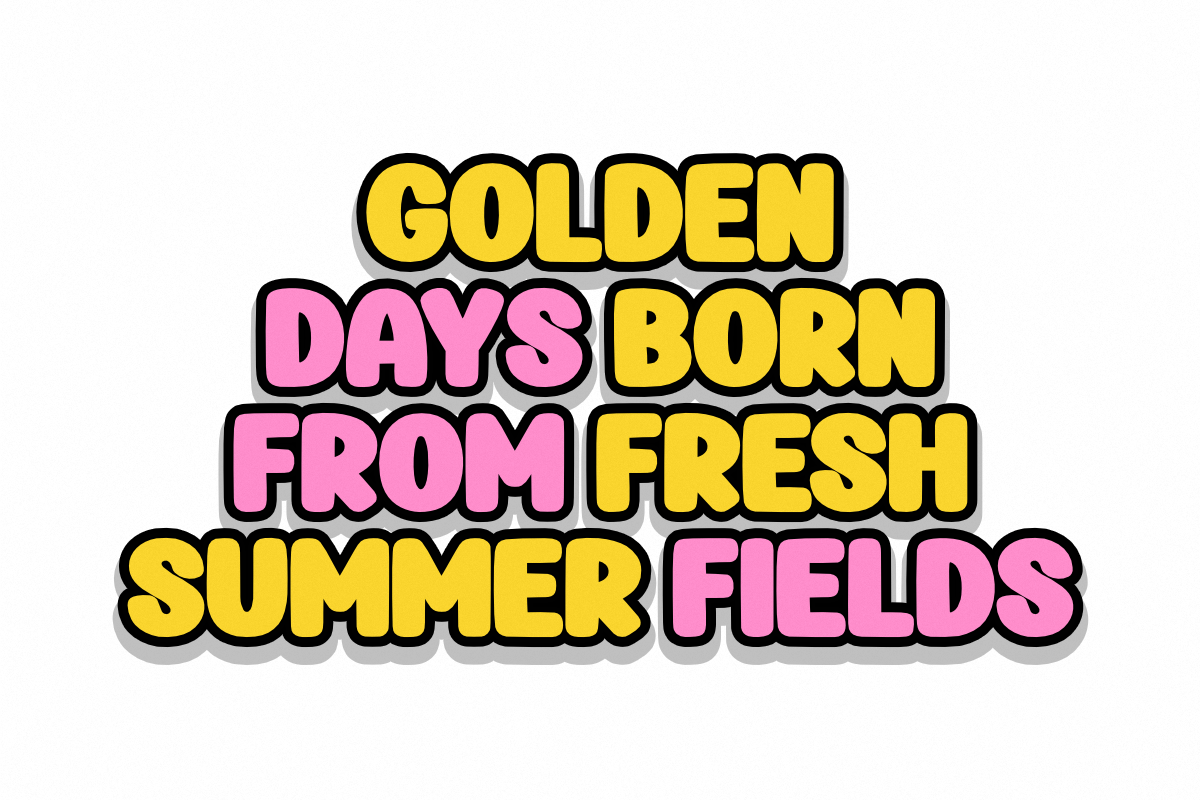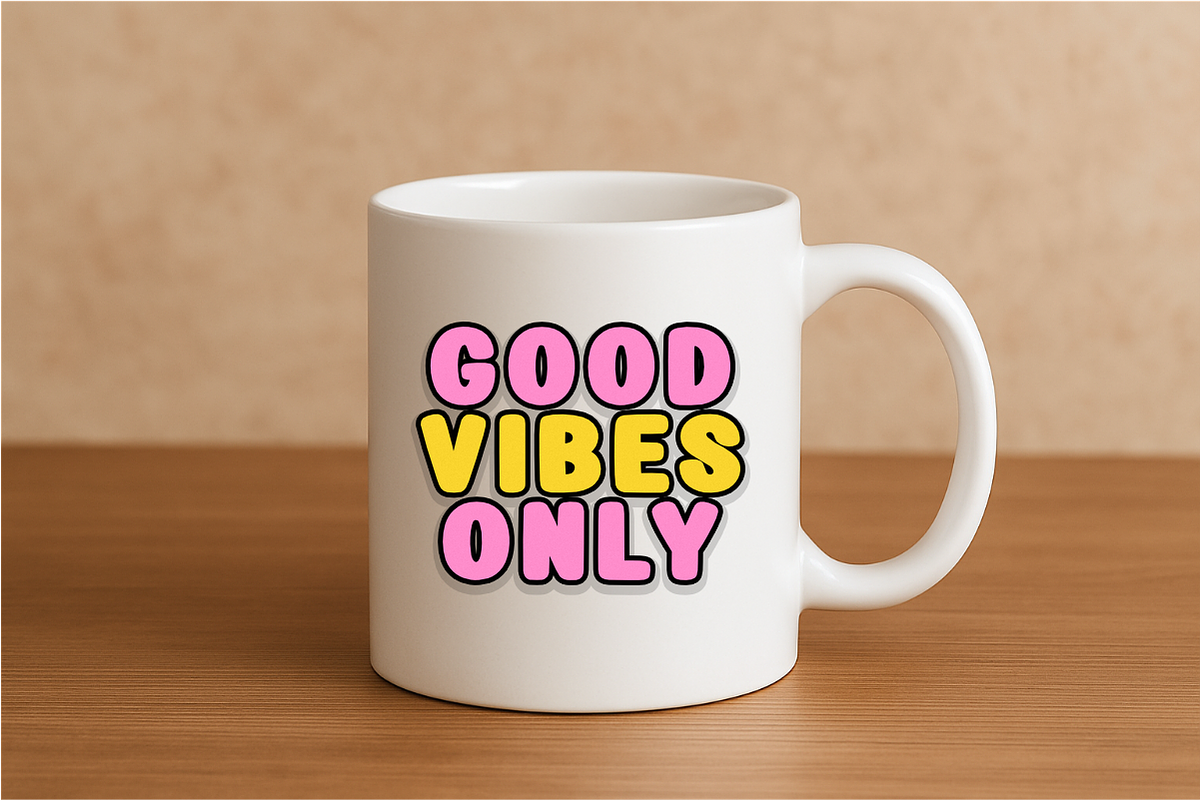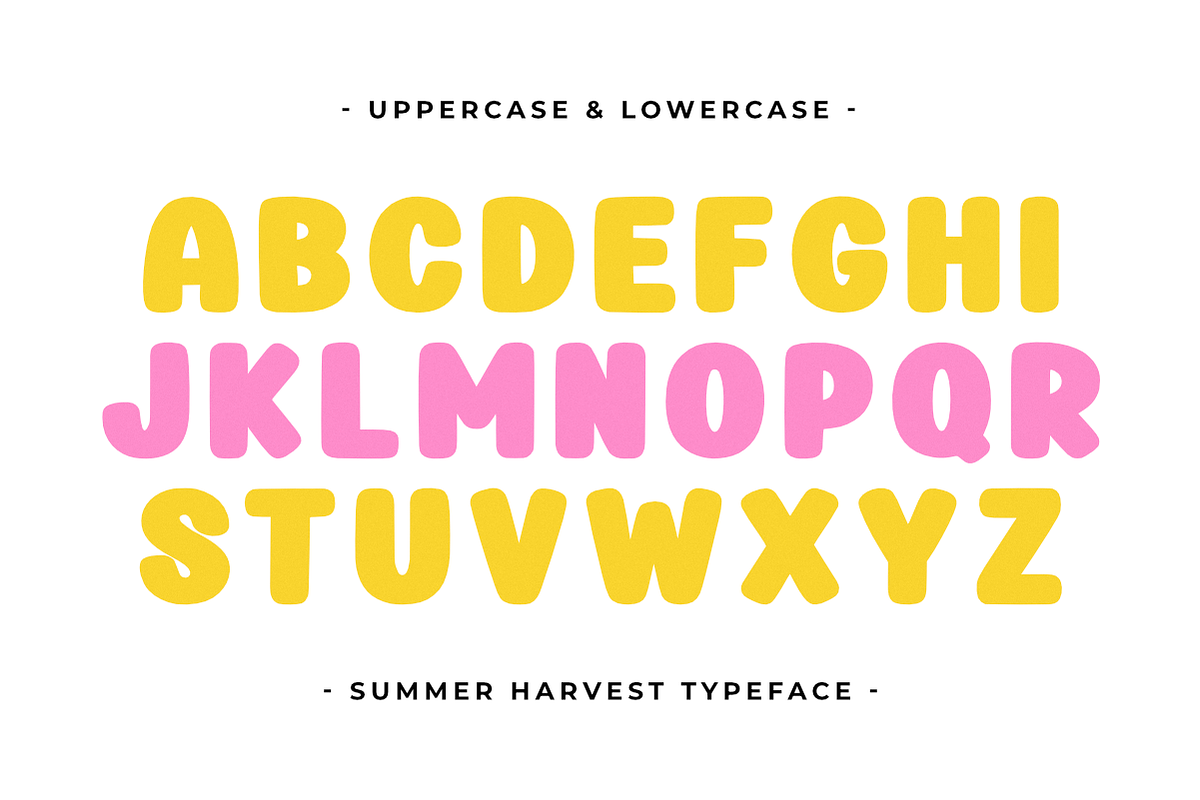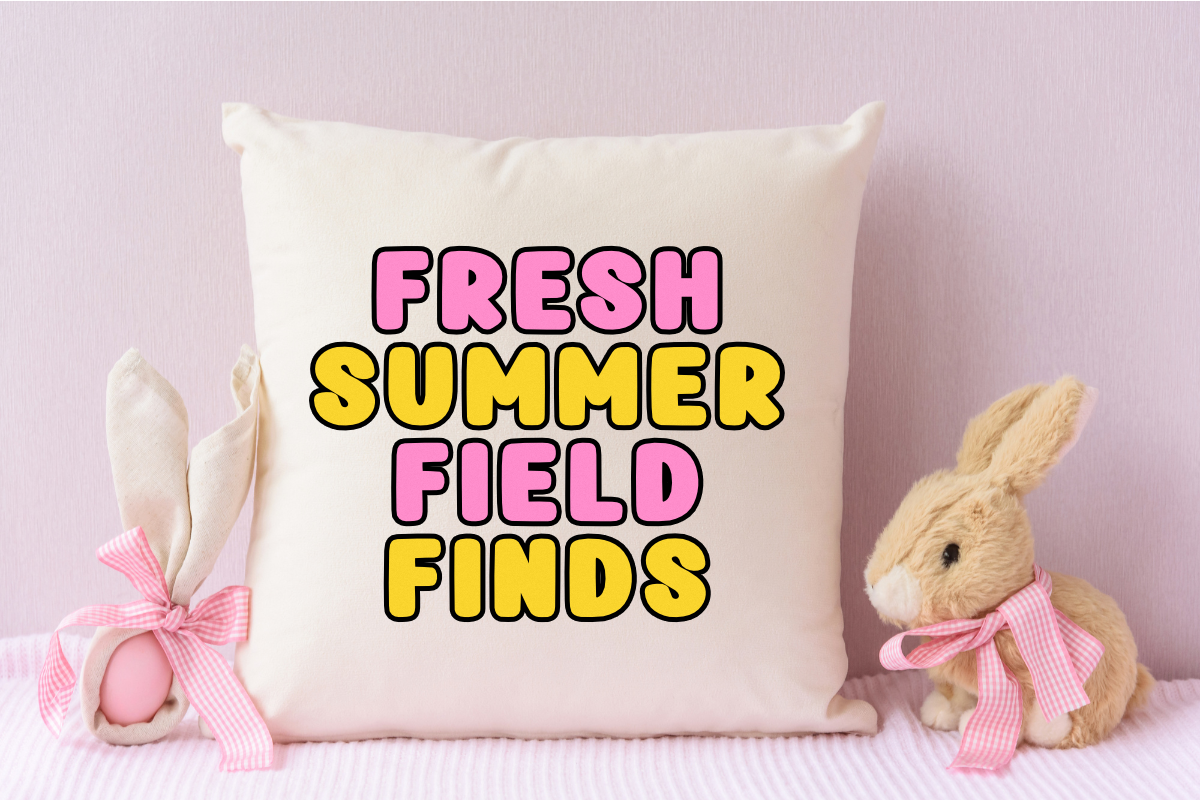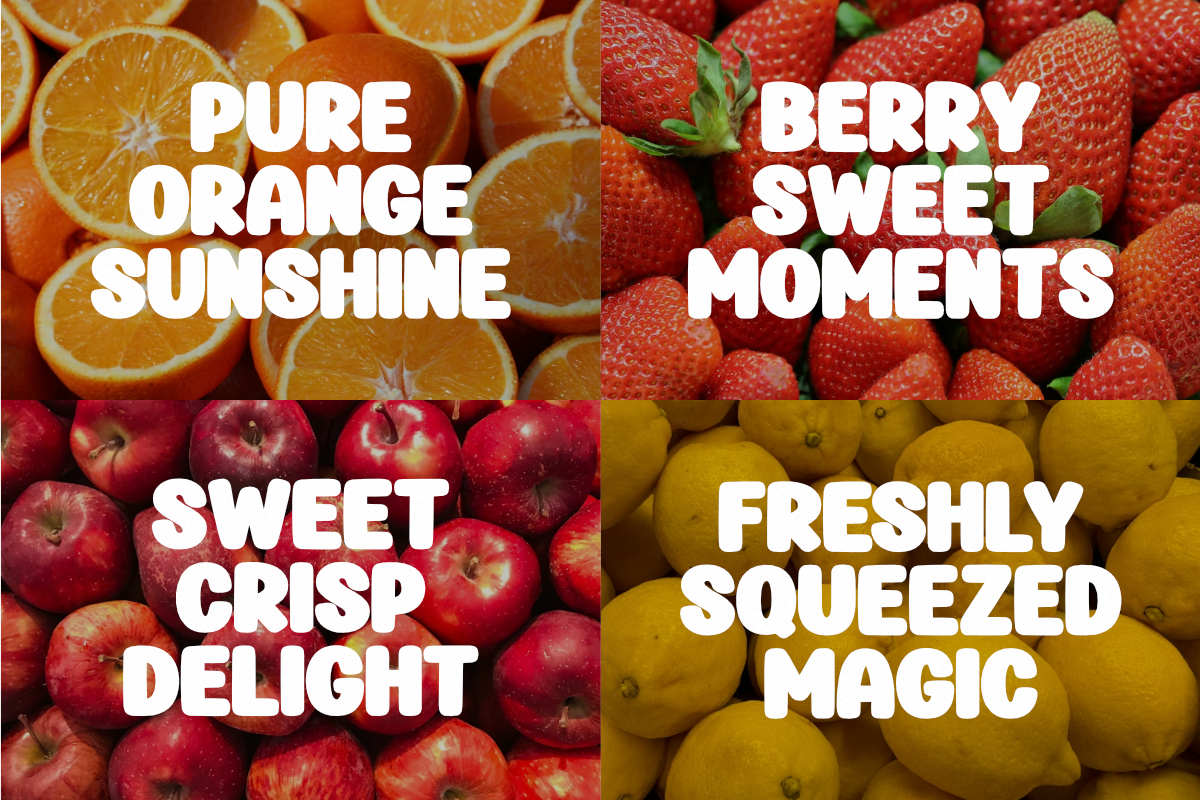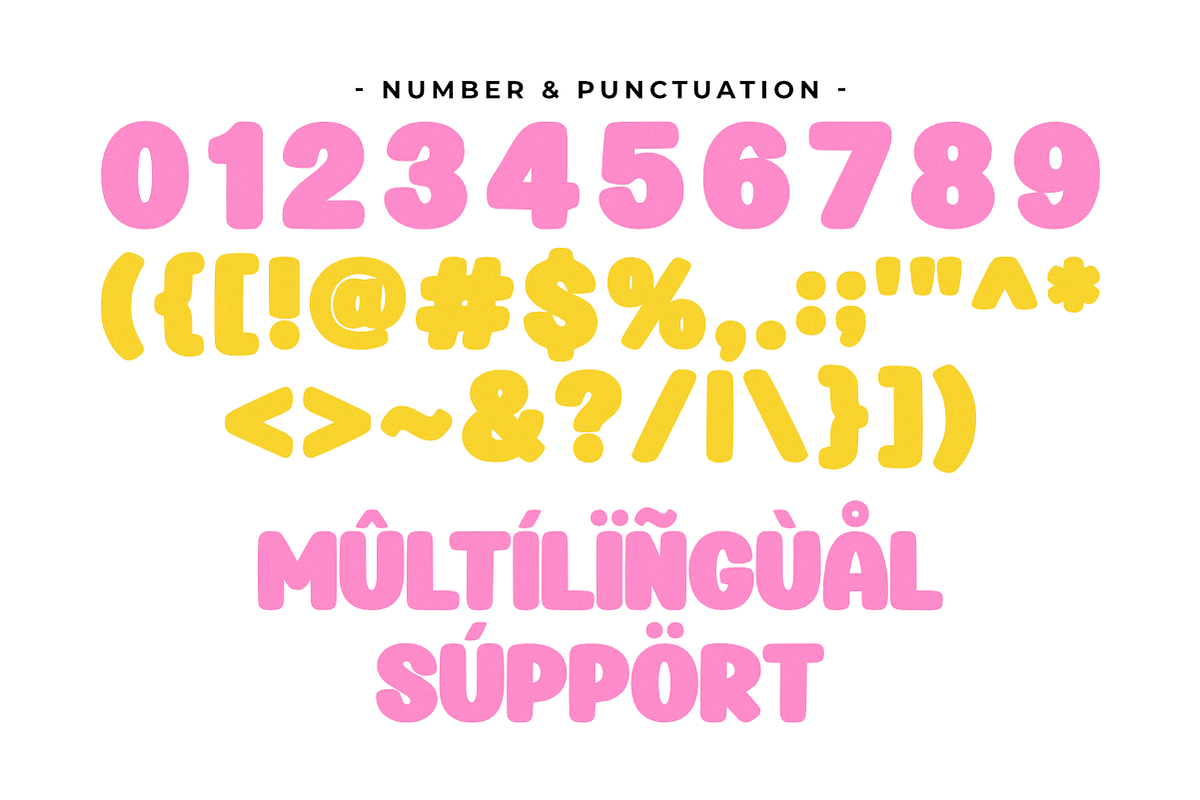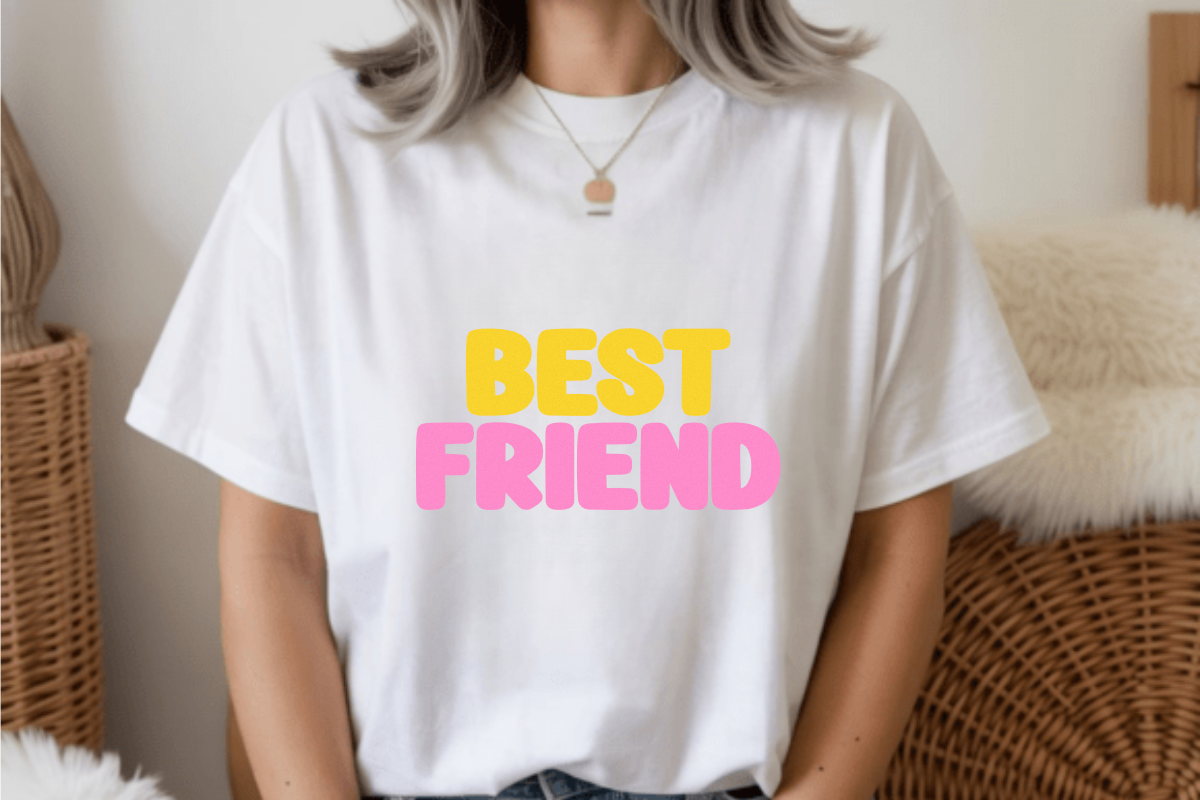
Summer Harvest - Playful Display
Summer Harvest is a vibrant and high-energy Playful Bold Display font designed to radiate warmth and joy in every character. This bold typeface features soft, rounded edges and a thick, friendly structure that is perfect for summer-themed branding, organic product packaging, children's book titles, and cheerful social media graphics. With its inviting and heavy-weight design, Summer Harvest delivers a modern yet approachable aesthetic, making it an essential tool for holiday posters, vibrant apparel, and creative projects that demand a fun, sun-kissed visual identity.